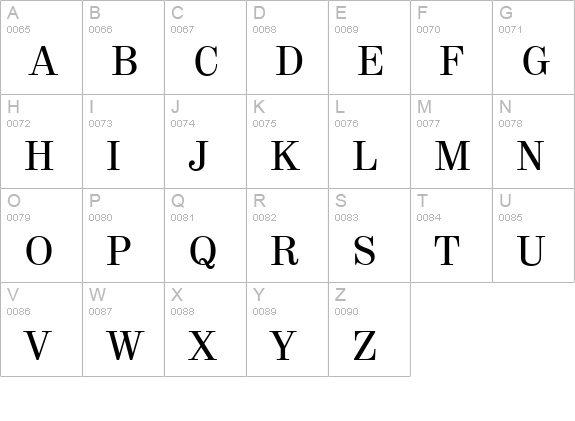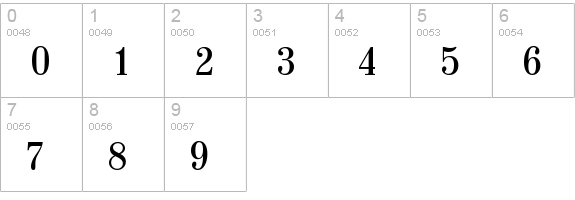
ValenciaSerial-Medium-Regular is a balanced, medium-weight variant in the ValenciaSerial typeface family \xE2\x80\x94 well suited to sub-headlines, navigation, and balanced editorial work.
ValenciaSerial-Medium-Regular font is a versatile and elegant typeface that exudes a sense of sophistication and modernity. Its clean lines and balanced proportions make it ideal for a wide range of design projects, from branding to editorial design. The medium weight strikes a perfect balance between readability and impact, making it suitable for both headlines and body text. What sets ValenciaSerial-Medium-Regular font apart is not only its timeless aesthetic appeal but also its accessibility. This high-quality font is available for free download at FontsMarket.com, allowing designers and creatives to easily incorporate it into their projects without any cost barriers. With its classic yet contemporary design, ValenciaSerial-Medium-Regular font is sure to elevate your designs and leave a lasting impression on your audience.